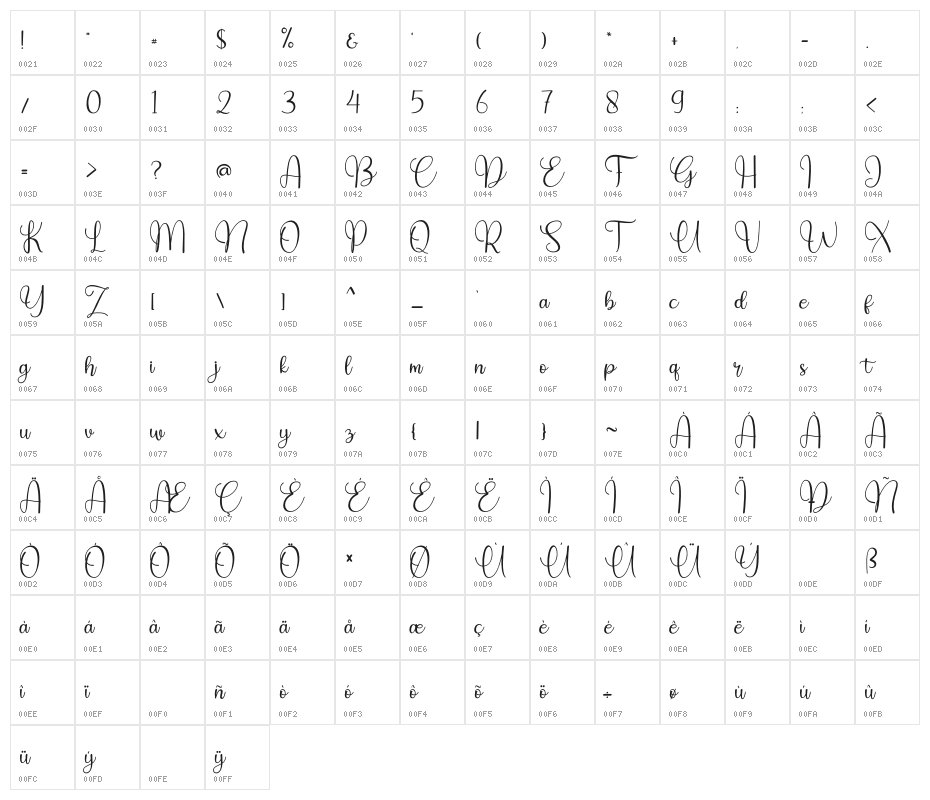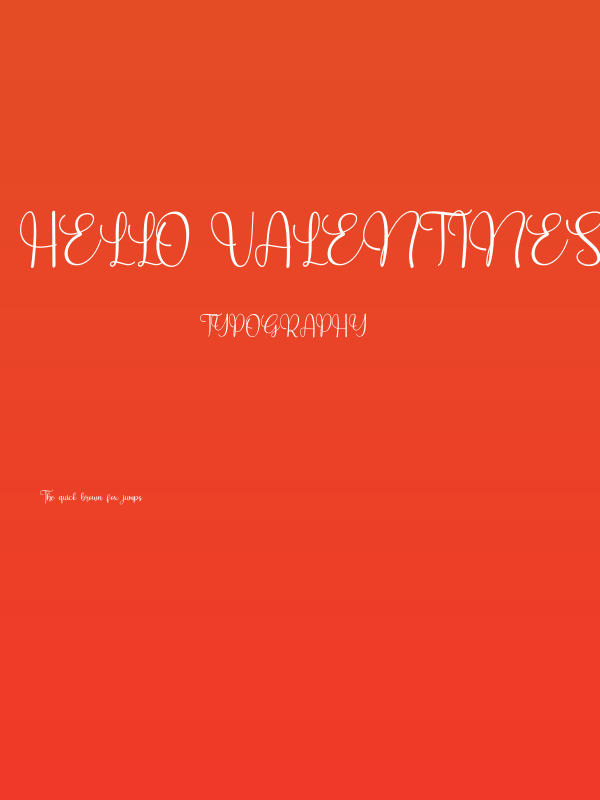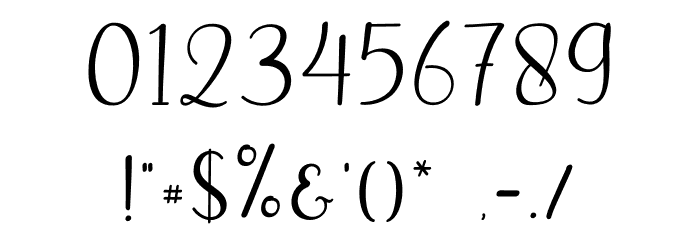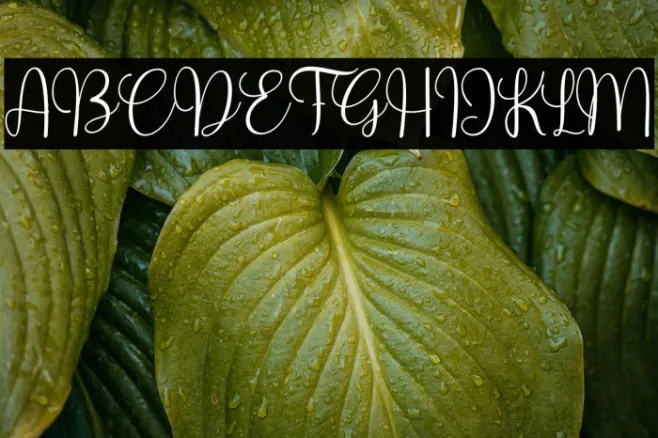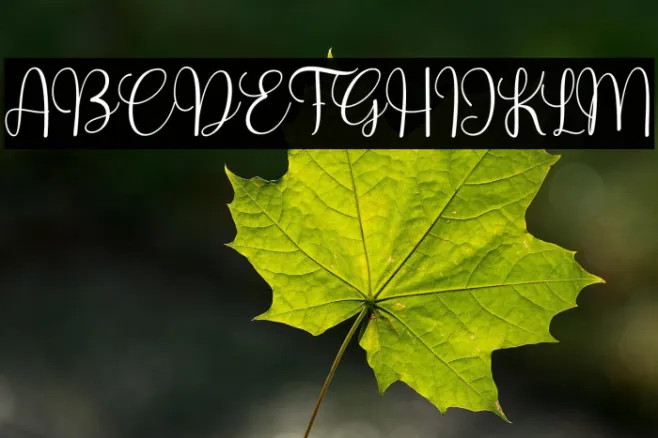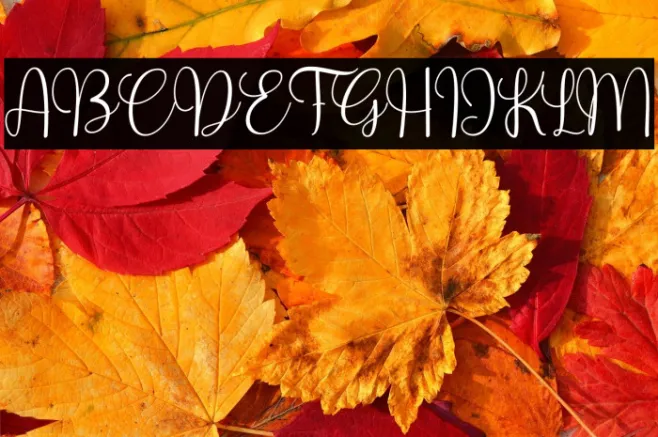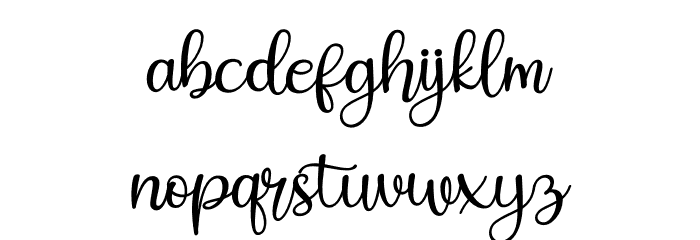
Hello Valentines Font
Hello Valentines Description
This font exudes a playful and romantic charm, characterized by its flowing, cursive style. The uppercase letters feature elegant loops and swirls, giving them a whimsical and airy appearance. The lowercase letters maintain a cohesive script style, with smooth connections between characters that enhance readability. Numbers and special characters are designed with the same fluidity, ensuring consistency throughout. The overall aesthetic is both modern and classic, making it suitable for a variety of creative projects. Its delicate strokes and moderate contrast make it ideal for designs that require a touch of elegance and personality.
| Overall Style | Romantic, Playful |
| Use Case | Headlines, Invitations, Branding |
| Proposed Projects | Ideal for wedding invitations, greeting cards, branding, and romantic-themed designs. |